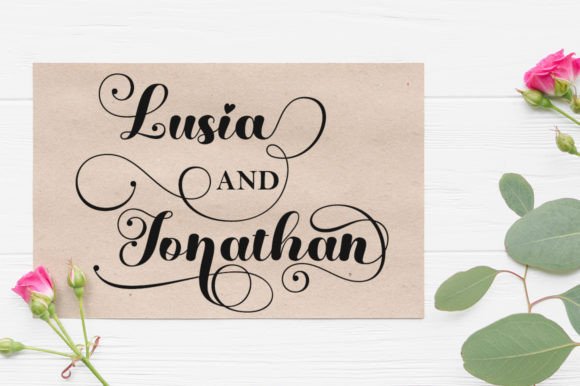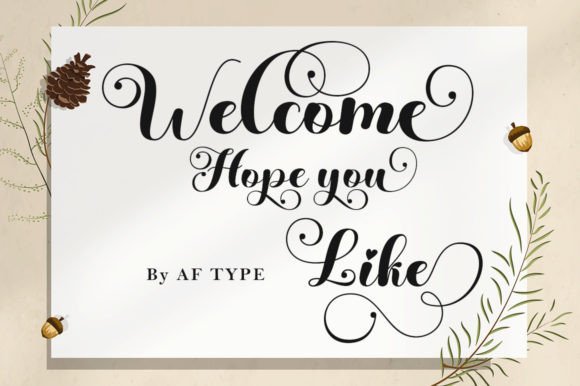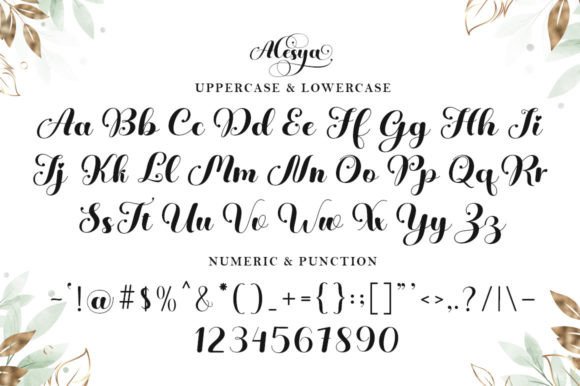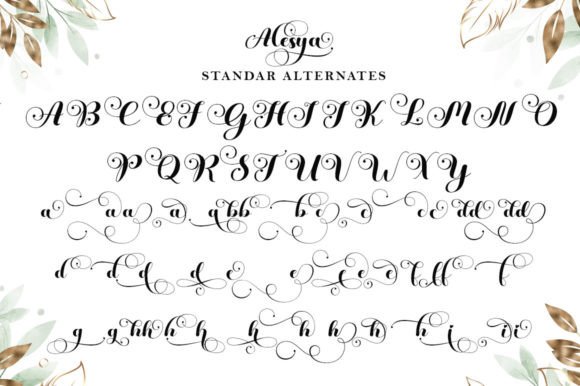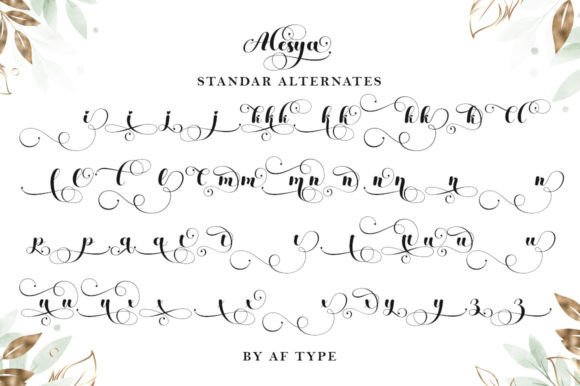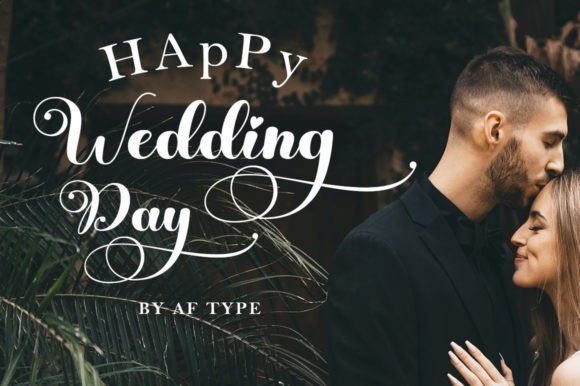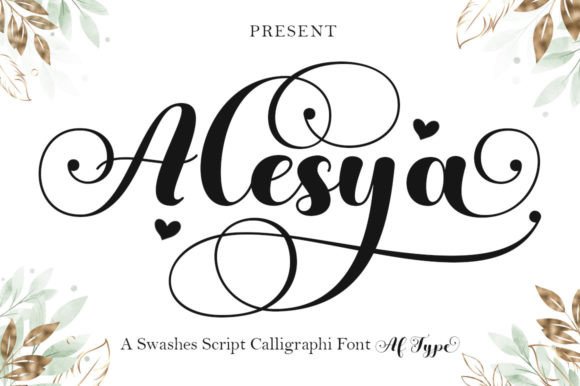
The Alesya Font: A Romantic Touch for Your Creations
Have you ever been in the middle of a design project, and suddenly, you realize that it’s missing that special something? I recall working on a Valentine’s Day card design, struggling to find the perfect font that would convey the romantic feel my client was looking for. That’s when I stumbled upon the Alesya font, and it completely transformed my design. In this article, we’ll dive into the world of Alesya, a stylish and refined font that’s perfect for a wide range of applications.
A Personal Review of Alesya Font
What I Love About Alesya ✨
- 💕 Romantic and elegant feel: Alesya adds a touch of sophistication to any design, making it perfect for greeting cards, wedding invitations, and more.
- ✅ PUA coded for easy access: The font is PUA coded, which means you can easily access all glyphs and swashes, giving you more creative freedom.
- 🎨 Versatile and adaptable: Alesya works well for both headlines and body text, making it a great addition to your font library.
While Alesya is an excellent font, there are a few things to keep in mind:
- 🤔 Limited availability of certain characters: Some users have reported that certain characters, like the Euro symbol, are not available in Alesya.
- ⚠️ Not suitable for very small text: Alesya is a elegant font, but it may not be the best choice for very small text, as it can become difficult to read.
The Backstory of Alesya Font
Alesya is a font designed with love and care, inspired by the beauty of handwritten scripts. While the actual designer is unknown, it’s clear that Alesya was created with the intention of bringing a touch of romance and elegance to the world of typography.
Q: What is PUA coding, and how does it benefit Alesya?
A: PUA (Private Use Area) coding allows designers to access additional glyphs and swashes, making it easier to create unique and personalized designs.
Q: Is Alesya available in different weights or styles?
A: Alesya is available in a single weight, but its elegant design makes it versatile enough to work well for both headlines and body text.